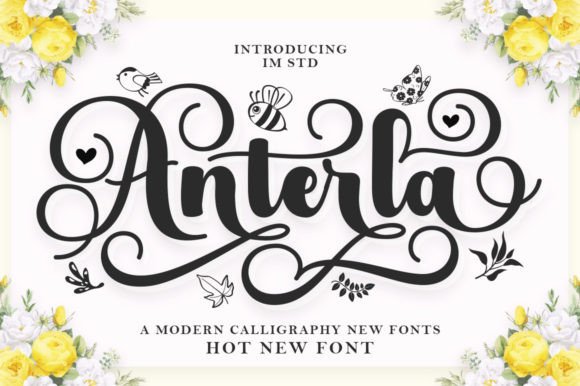
Unleash the Allure of Anterla: A Symphony of Script for Your Creative Endeavors
In the realm of digital artistry, the choice of font holds immense power to evoke emotions, convey messages, and create lasting impressions. Meet Anterla, the enchanting script typeface that will transform your design projects into captivating masterpieces.
Anterla, a creation of the renowned IM Studio, is a font that exudes romance and sweetness. Its characters dance elegantly along the baseline, adding a touch of luxury to every letter and word. Whether you're designing wedding invitations, crafting social media posts, or creating logos, Anterla will elevate your work with its timeless beauty.
Step into a world of creativity where your imagination knows no bounds. With Anterla, you can:
- Craft heartfelt wedding invitations that capture the essence of your love story.
- Design social media posts that sparkle with elegance and charm.
- Create logos that embody the unique personality of your brand.
- Write eye-catching headlines that command attention and leave a lasting impression.
- Add a touch of sophistication to your presentations and marketing materials.
The possibilities are endless with Anterla, the versatile script font that adapts seamlessly to a multitude of design styles. Its PUA encoding ensures effortless access to a treasure trove of glyphs and ligatures, empowering you to unleash your creativity without limits.
Anterla is more than just a font; it's an artistic expression that breathes life into your designs. Its enchanting curves and graceful lines will captivate your audience, leaving them spellbound by the beauty of your creations.
Don't settle for ordinary fonts that fail to inspire. Embrace the magic of Anterla and watch your designs transform into works of art. Experience the joy of creating with a font that truly understands the language of beauty and elegance.